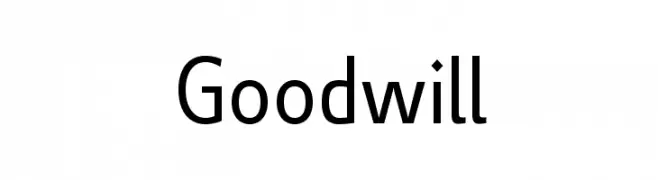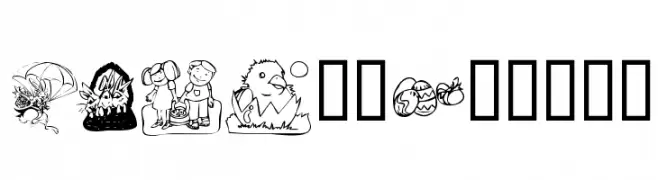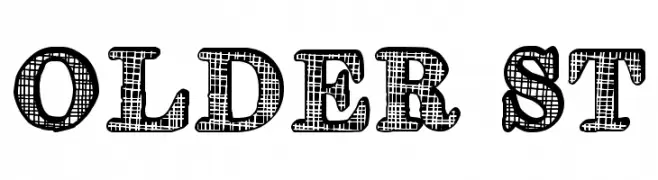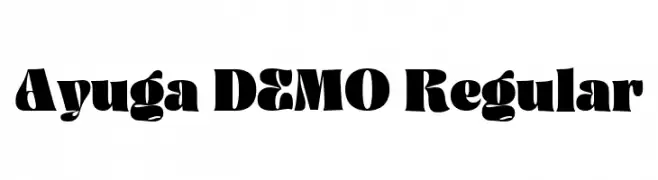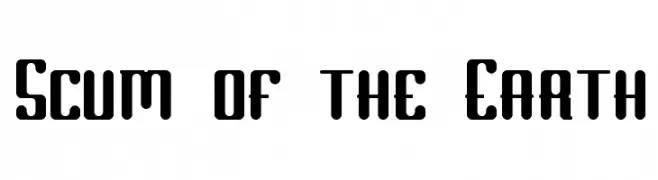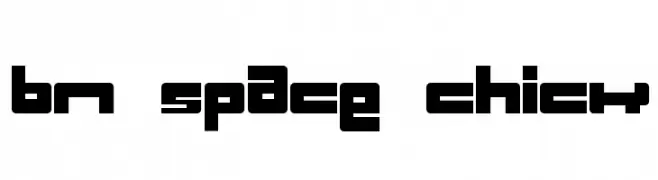
A modern sans-serif font with geometric shapes and uniform stroke width.
A bold, oblique font with thick strokes and a dynamic appearance.
A decorative Easter-themed font with playful illustrations replacing characters.
A bold, monospaced font with a semi-condensed width and strong visual impact.
A bold, decorative font with a checkered pattern, ideal for vintage-themed designs.
A bold, high-contrast font with unique, eye-catching characters.
A bold, geometric font with uniform strokes and rounded edges for a modern look.
A bold, hand-drawn font with rugged, uneven strokes and a vintage feel.